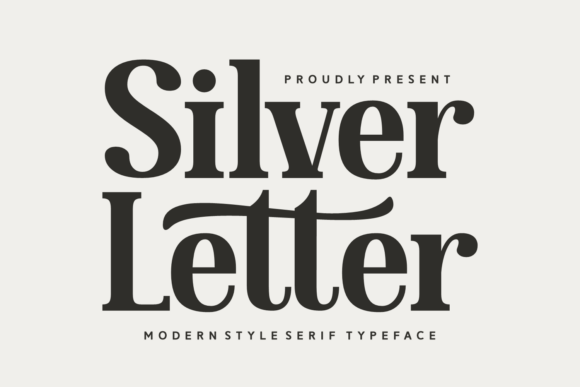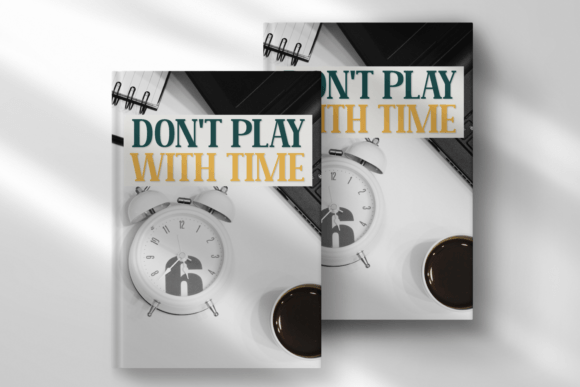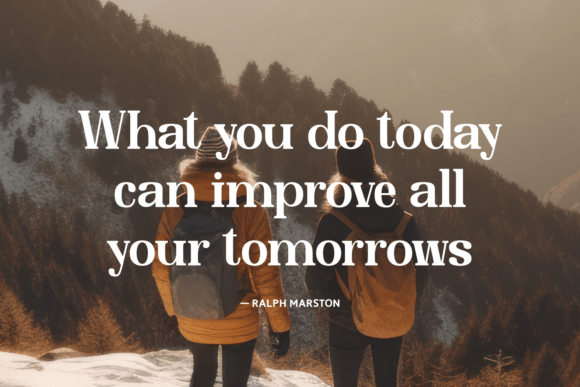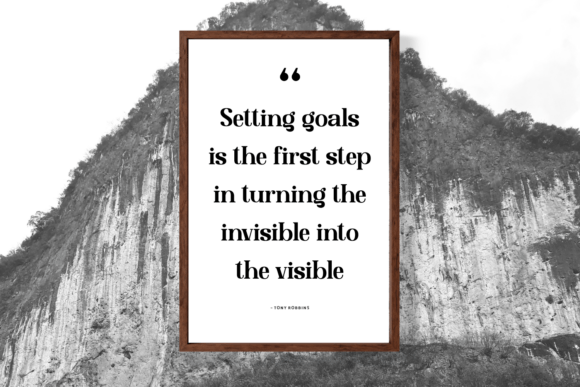
Silver Letter Font: Modern Serif for Elegant Logo Design
About the Silver Letter Font
Meet Silver Letter Font, a stunning font that brings a touch of elegance and professionalism to any design. Silver Letter is a modern serif font with bold, stylish letters. It features clean lines and elegant curves, making it perfect for headings and logos. The font combines a contemporary look with a classic touch, giving your designs a sophisticated feel. It’s easy to read and adds a touch of professionalism to any project.
Silver Letter Font Usage Examples
Silver Letter Font Example